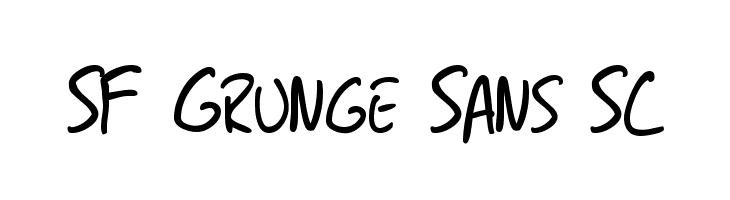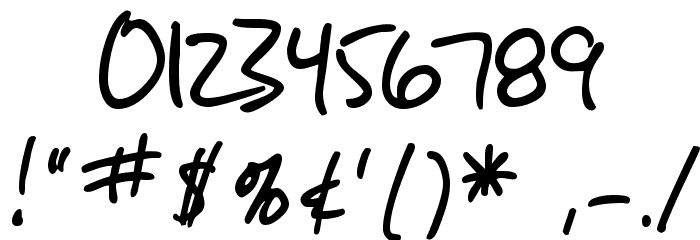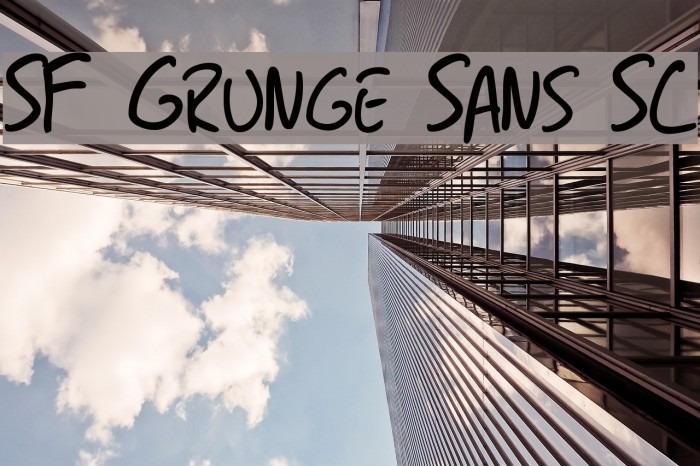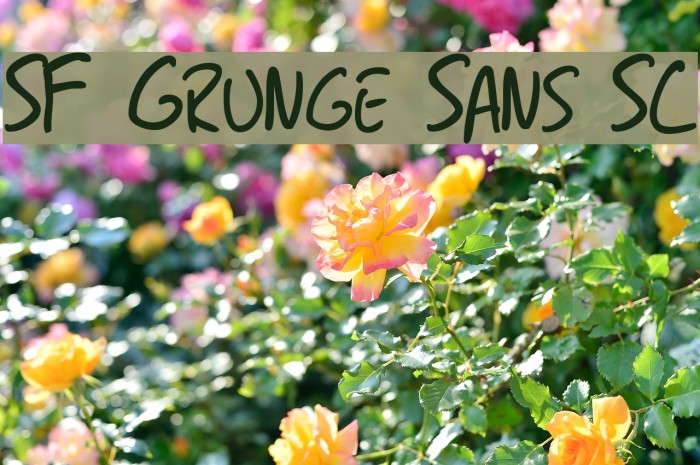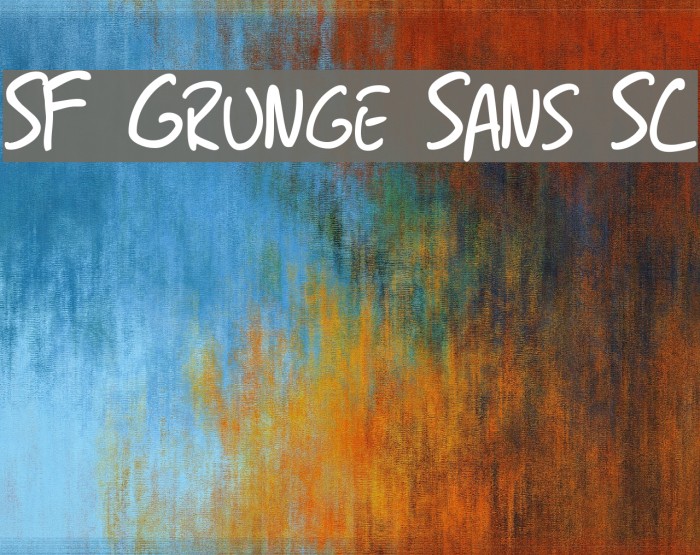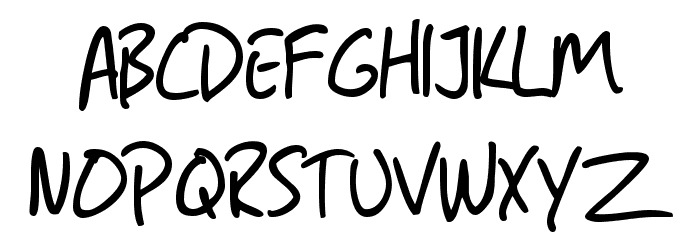
SF Grunge Sans SC Font
SF Grunge Sans SC Description
This font features a bold, handwritten style with a casual and informal appearance. The characters are slightly irregular, giving it a playful and dynamic feel. The strokes are thick and consistent, with a slight slant that adds to its energetic vibe. The uppercase and lowercase letters are well-balanced, maintaining a cohesive look throughout. The numbers and special characters are designed to match the overall aesthetic, making it versatile for various uses. Its unique style is perfect for projects that require a personal touch or a creative flair.
| Overall Style | Casual, Playful |
| Use Case | Headlines, Logos, Creative projects |
| Proposed Projects | Ideal for posters, greeting cards, social media graphics, and creative branding. |